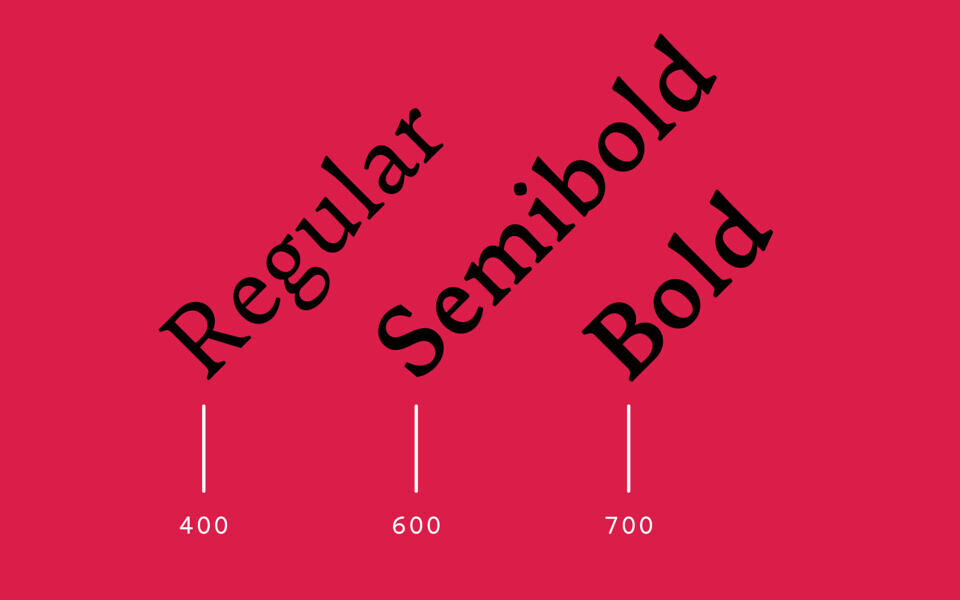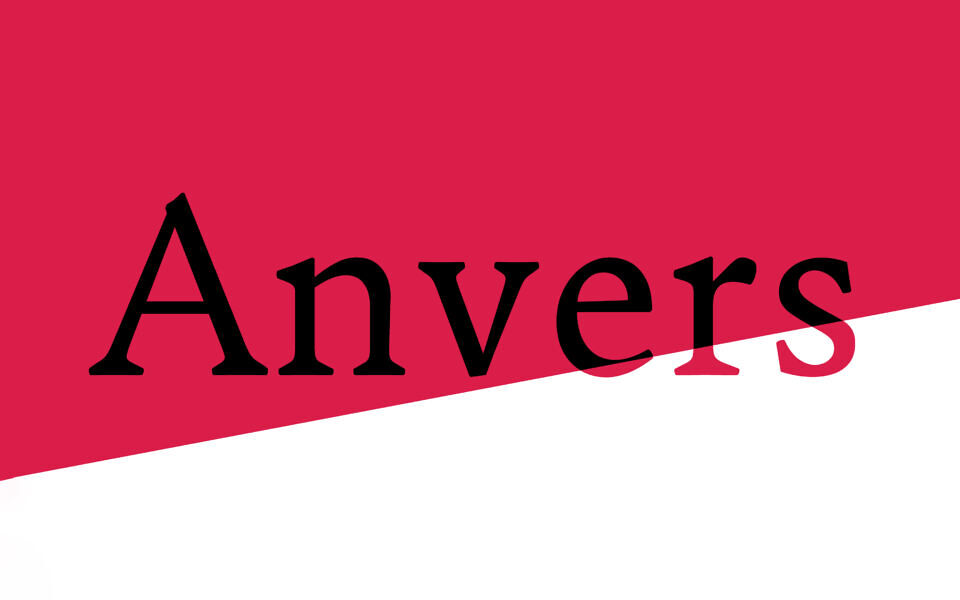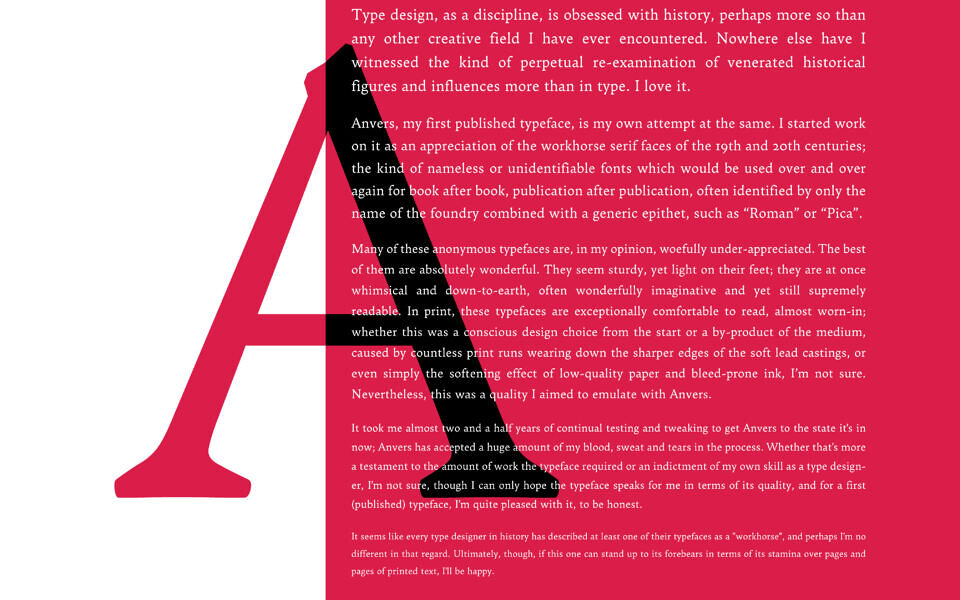
Anvers is an open-source serif typeface designed for easy readability over long stretches of small text in print and on-screen. The typeface follows in the footsteps of commonly-used printers’ typefaces such as Monotype’s Plantin and the various Garamond typefaces, among many others, in its wide apertures, chunky letterforms and pursuit of readability. Anvers is currently a roman-only typeface, in regular, semibold and bold weights.